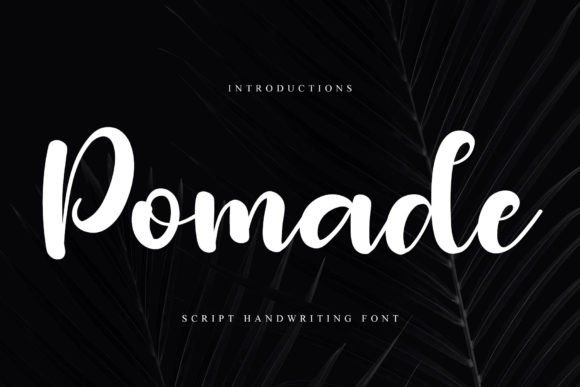
About Pomade Font Download
The Pomade Font Download is a bold and robust script typeface designed to capture attention and make a statement. With its powerful handwritten strokes and strong visual presence, this font adds confidence and vibrancy to any project. Whether you are creating posters, invitations, or digital graphics, Pomade brings energy and clarity.
A Bold Script with Vibrant Energy
The Pomade script font combines thick strokes with elegant handwritten balance. As a result, it feels impactful yet stylish. Furthermore, it adapts to both large-scale designs like billboards and smaller layouts such as packaging, which makes it highly versatile for designers.
Handwritten fonts often create emotional and personal connections. The Pomade Font is excellent for wedding invitations, birthday notes, thank you cards, and seasonal greetings. Because of its bold and lively rhythm, each card feels polished and unforgettable. In addition, it ensures every design looks unique and engaging.
Branding and Logo Design with Pomade Font
Typography is one of the strongest tools in building brand identity. The Pomade handwritten font is perfect for boutique logos, product packaging, and promotional content. Its bold handwritten strokes give businesses a vibrant, professional, and memorable look. Therefore, it works especially well for fashion, lifestyle, and creative industries.
Posters, Titles, and Eye-Catching Displays
The Pomade Font Download is also a great fit for posters, banners, book covers, and magazines. It holds readability in every size while adding bold handwritten charm. Consequently, it is a practical option for designers who want maximum visual impact.
In the fast-paced digital world, fonts must stand out immediately. The Pomade typeface integrates smoothly into Instagram graphics, YouTube thumbnails, Pinterest boards, and blogs. Because of its bold handwritten character, it ensures digital designs look dynamic and attractive.
Why Designers Choose Pomade Typeface
Designers love fonts that balance strength with usability. The Pomade handwritten script keeps its bold charm while staying legible. This makes it suitable for professionals and hobbyists alike. Moreover, its timeless design ensures it will remain effective for future projects.